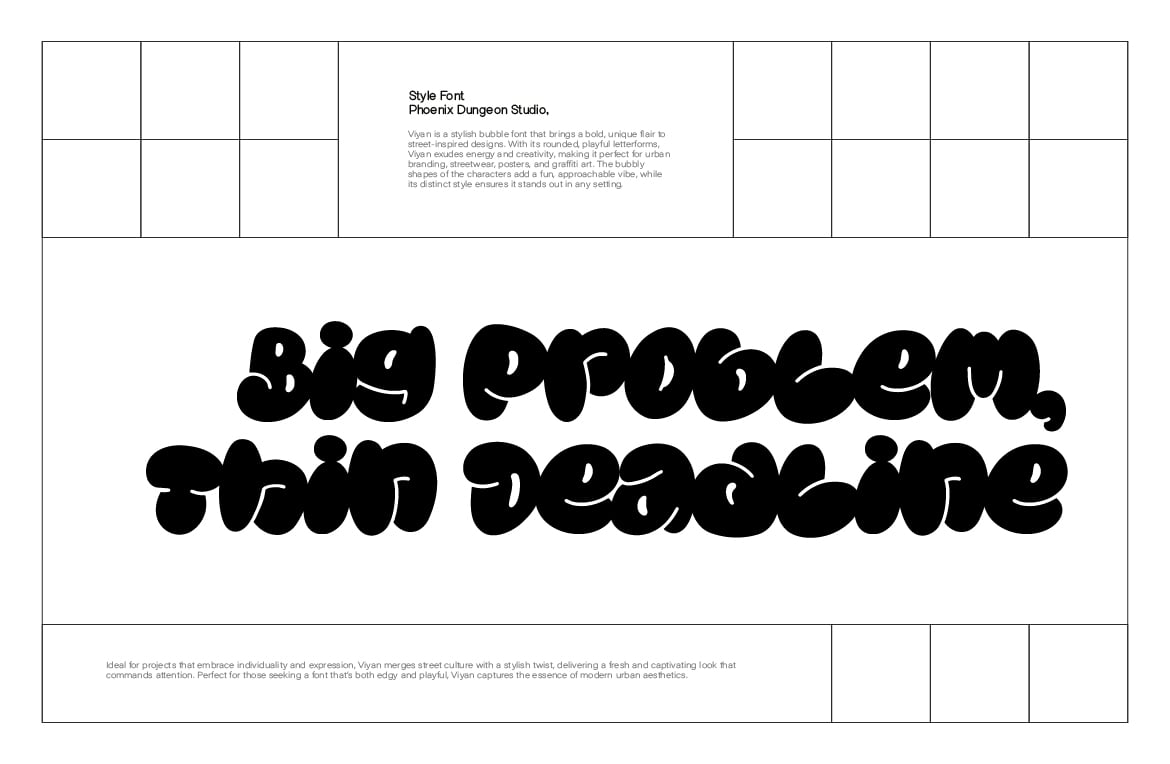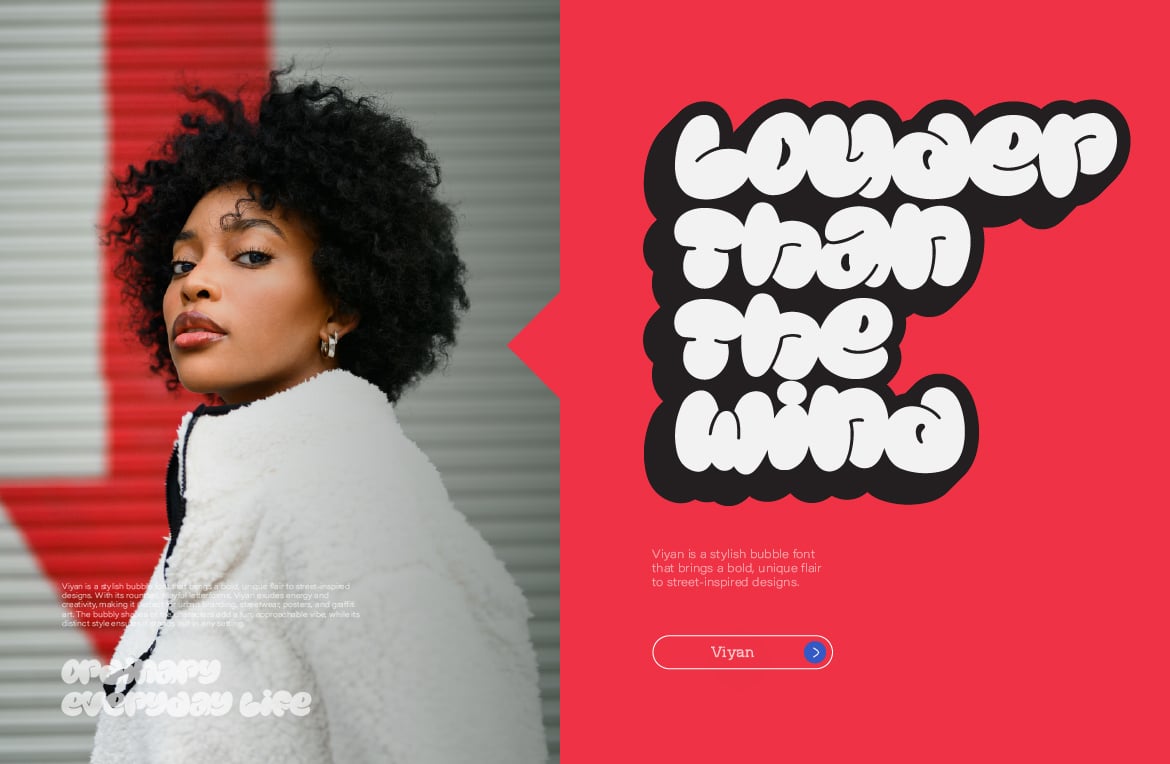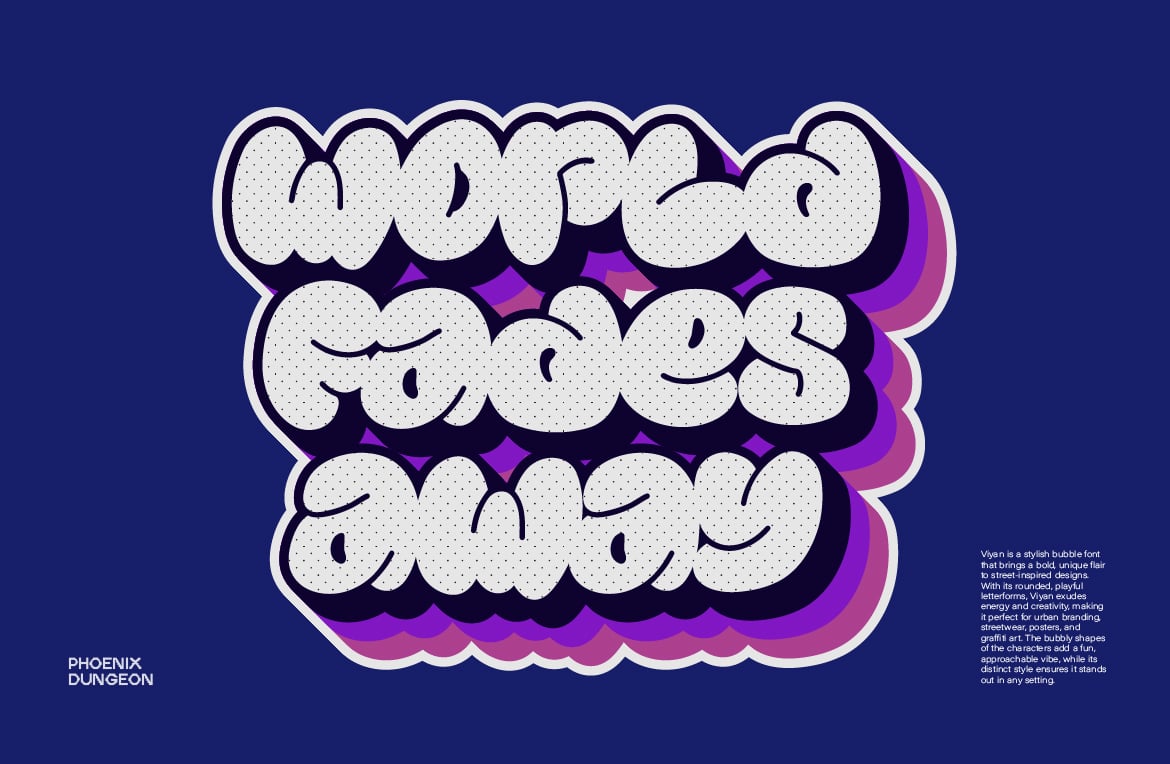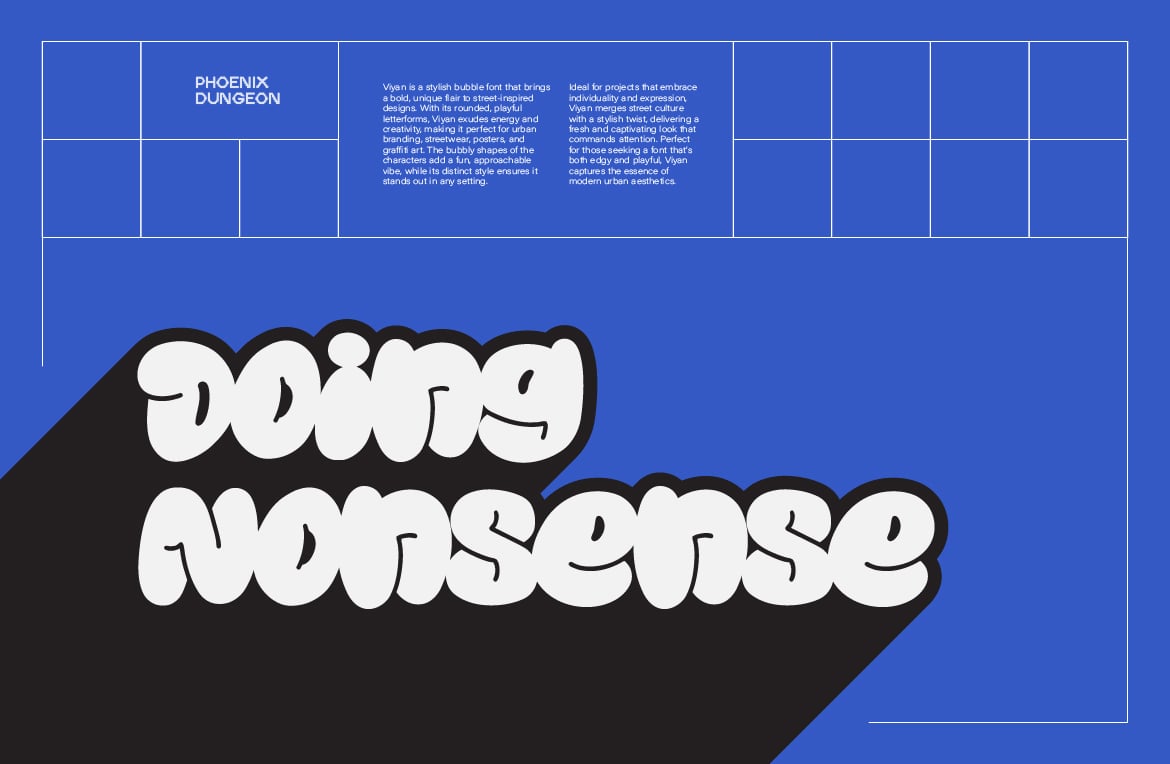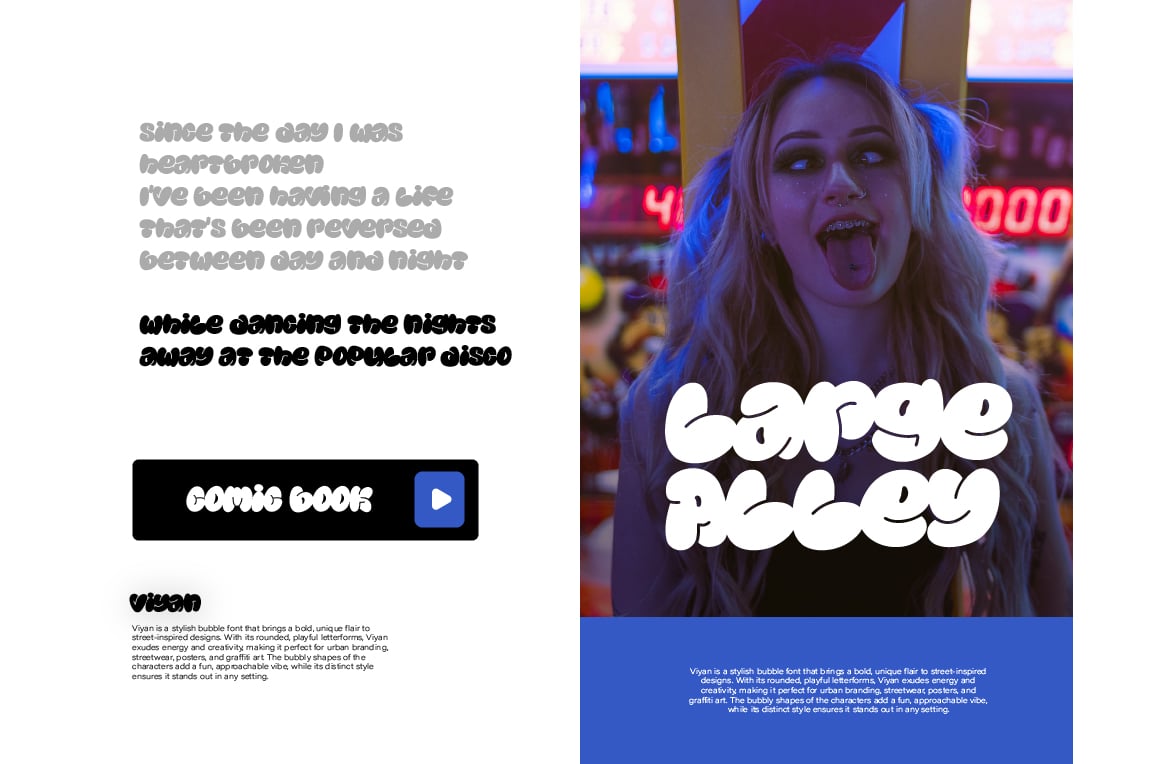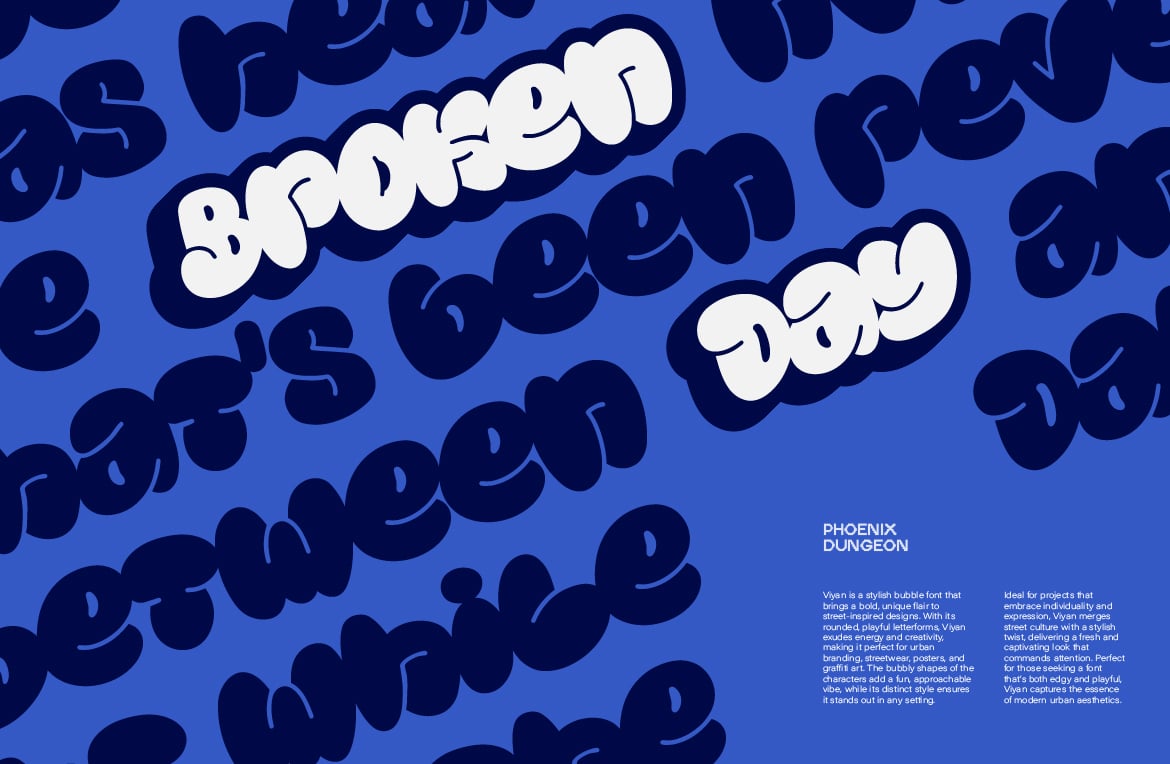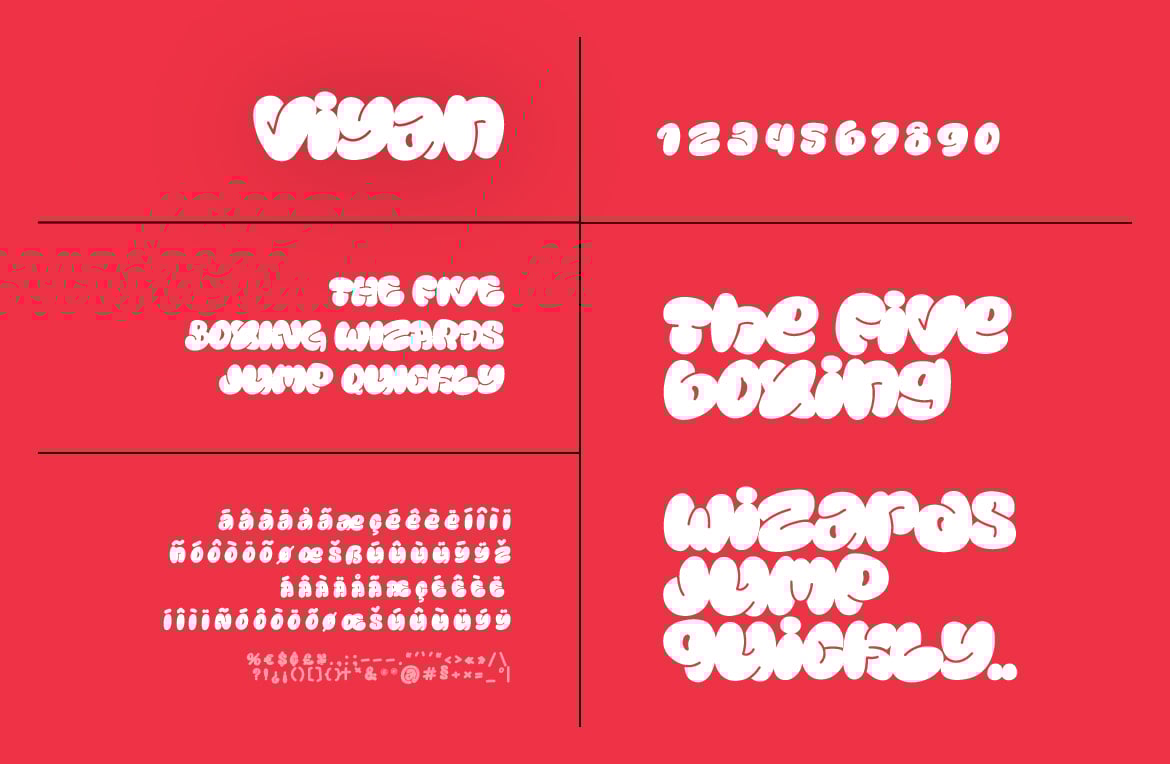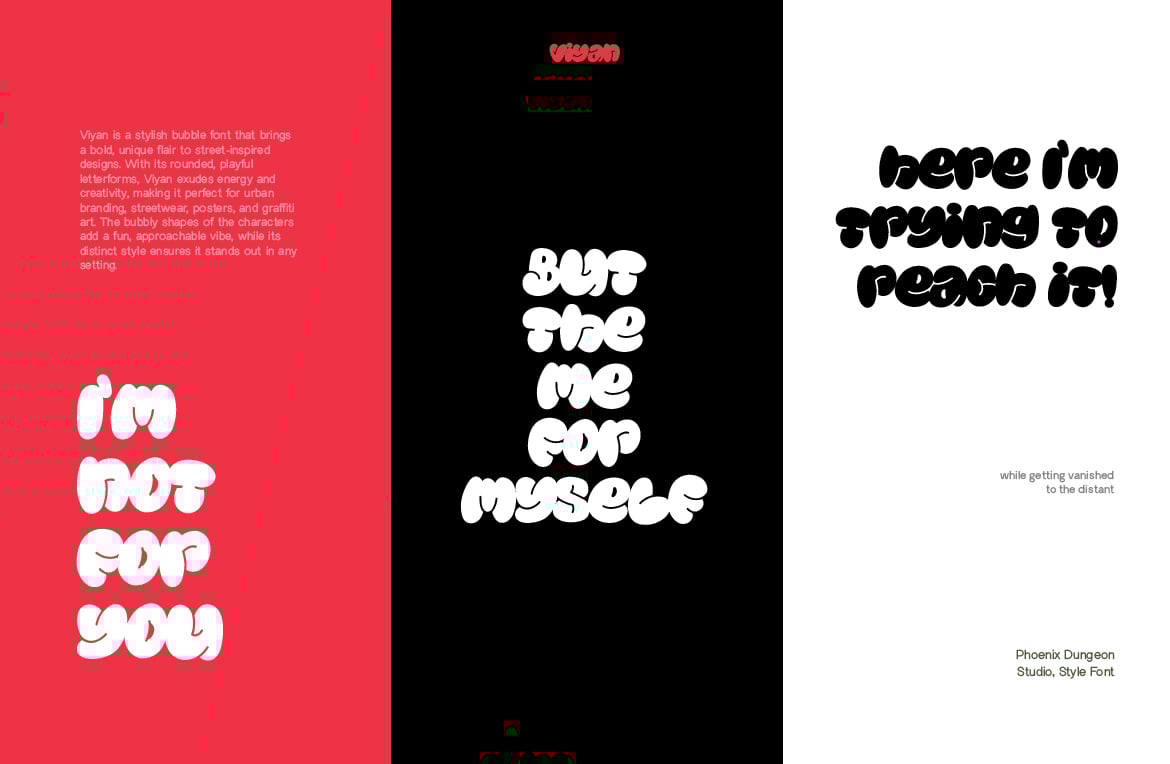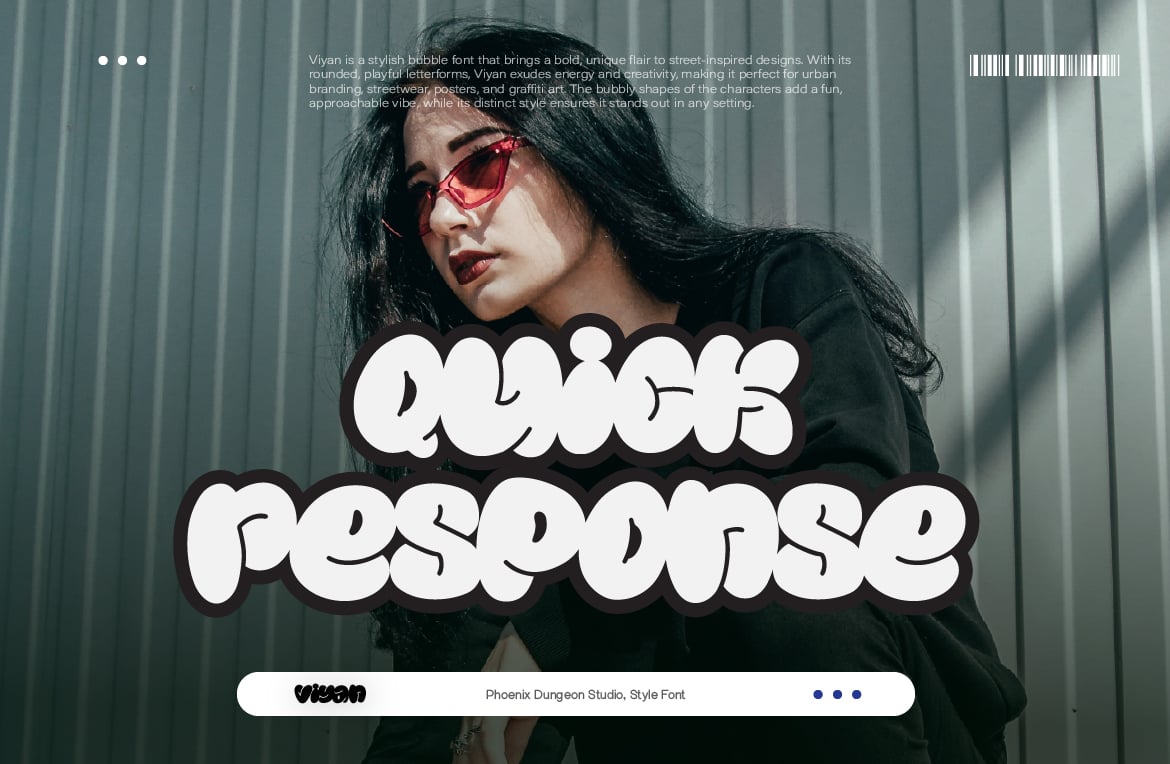
Viyan Font
Viyan is a stylish bubble font that brings a bold, unique flair to street-inspired designs. With its rounded, playful letterforms, Viyan exudes energy and creativity, making it perfect for urban branding, streetwear, posters, and graffiti art. The bubbly shapes of the characters add a fun, approachable vibe, while its distinct style ensures it stands out in any setting. Ideal for projects that embrace individuality and expression, Viyan merges street culture with a stylish twist, delivering a fresh and captivating look that commands attention. Perfect for those seeking a font that’s both edgy and playful, Viyan captures the essence of modern urban aesthetics.